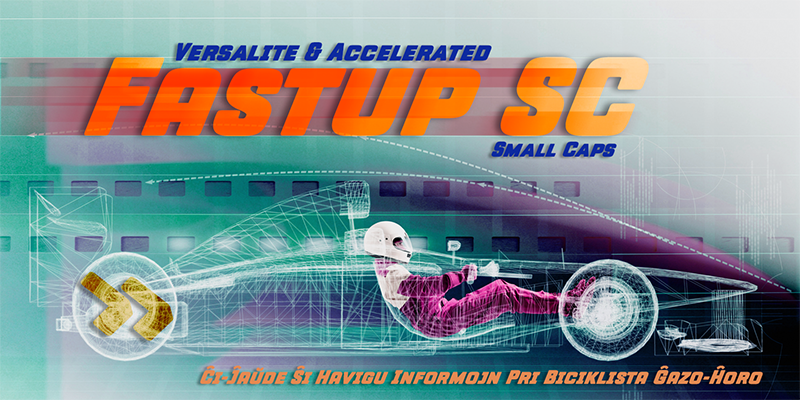
Preview and download Fastup SC Font. Created by deFharo in Basic Sans serif styles with Free for personal use license.
Fastup Small Caps is available in two weights (Regular and Bold), geometric design fonts, with a rounded finish on the vertices that provides warmth, with short ascenders and descenders offers a more compact set of letters, the 22� inclination makes them more dynamic with a current and technological style, the careful configuration of the metrics and the Kerning achieve maximum legibility for these unique typefaces. The fonts include various alternate letters and numbers. Check the attached pdf. These fonts are specially designed for advertising and editorial or corporate design. ============================= FULL VERSIONS & LICENSES: https://defharo.com/fonts/fastup/ |